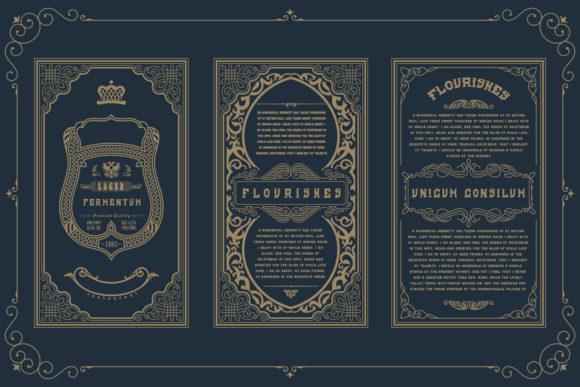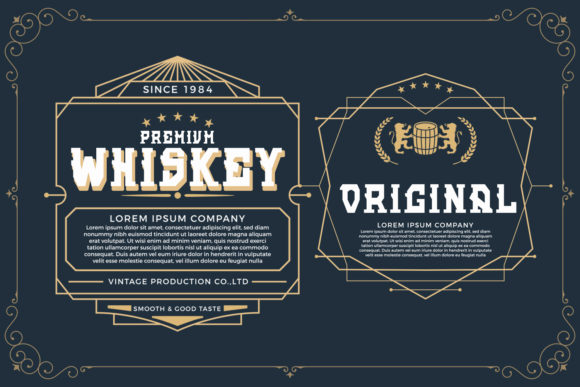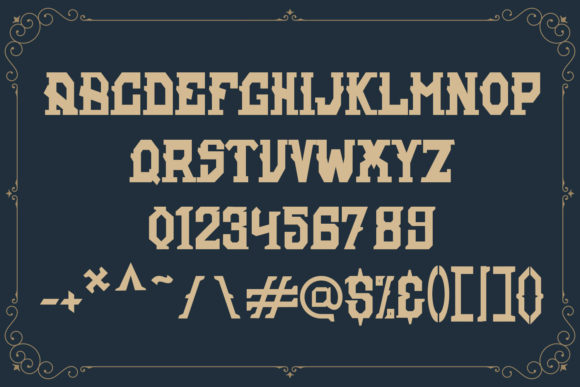
Introduction to Rasonic Font
Remember that moment when you’re working on a creative project, and you need the perfect font to bring your vision to life? The right font can make all the difference between a good design and a great one. For many designers, that perfect font is Rasonic Font – a fantastic display font with a vintage look that adds a touch of elegance to any project.
Whether you’re working on a web design, a print campaign, or even a moving image, Rasonic Font is a valuable design resource that can elevate your work. Its versatility makes it perfect for headlines of all sizes, as well as for blocks of text that require maximum and minimum variations. Plus, with a transparent background option, you can easily customize it to fit your design needs.
- Rasonic Font’s unique characteristics include its modern aesthetic and clean lines, making it a great choice for contemporary design projects.
Honest Review: Rasonic Font
I recently stumbled upon the Rasonic Font and I’m excited to share my thoughts with fellow designers. As a design resource, this font has some great features that make it a great addition to any creative project.
- ✨ The font’s modern design and sleek lines make it perfect for contemporary designs and websites.
- ✨ The font is highly legible, even on small screens, making it a great choice for mobile-friendly designs.
However, as with any design resource, there are some limitations to consider.
- ⚠️ The font doesn’t come with a transparent background option, which may limit its use in certain design scenarios.
- ⚠️ While it’s a high-quality font, it’s not as extensive as some other font families, with a limited character set.
Overall, I think the Rasonic Font is a great addition to any design library. Its modern design, free download, and high legibility make it a great choice for designers working on creative projects. However, designers should be aware of the limitations, particularly the lack of a transparent background option.
Rasonic Font is ideal for creative projects such as logos, graphics, presentations, and documents. It’s also great for adding a touch of creativity to social media posts, flyers, or brochures.